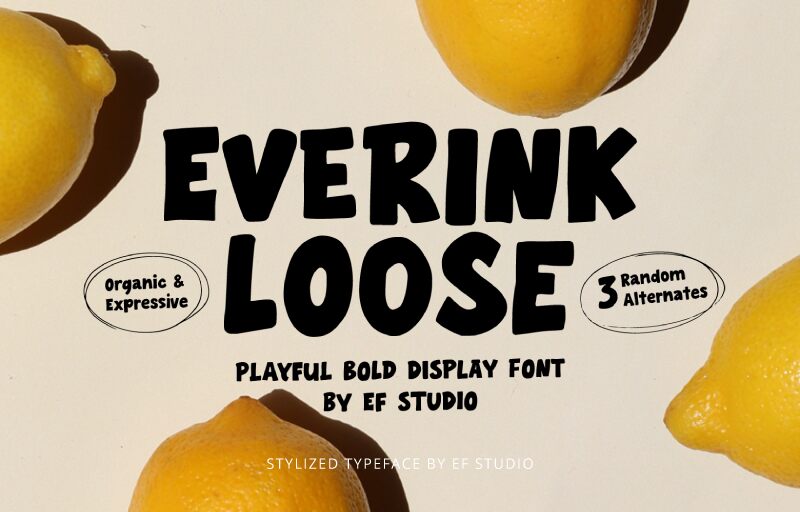
Everink Loose font
Everink Loose
Ef Studio
Everink Loose is a bold display type designed to feel alive as you type. Each letter and number features three alternates that rotate automatically through contextual alternates, eliminating the need for manual switching or careful setup.
Even in short words, subtle variations emerge, while in longer text, the rhythm becomes more pronounced. Repeated letters shift naturally, and shapes echo without exact repetition, allowing the text to remain expressive without feeling cluttered.
Everink Loose is ideal for posters, menus, packaging, social graphics, and any application where personality is more significant than precision. The loose shapes, rounded energy, and confident weight give the font a human presence, imperfect in the right way.
Just type, and the alternates will follow seamlessly.
Features:
- Three alternates per letter and number
- Automatic contextual alternates
- Uppercase, lowercase, numerals, extended Latin, and punctuation marks included